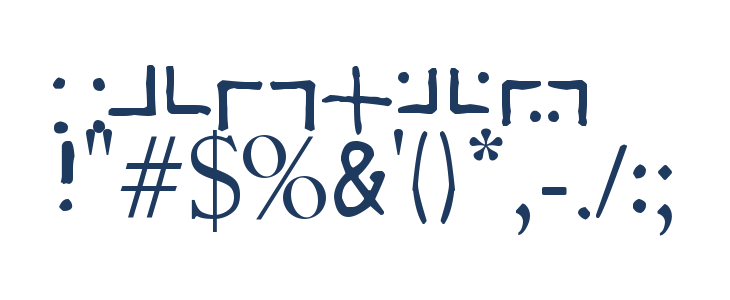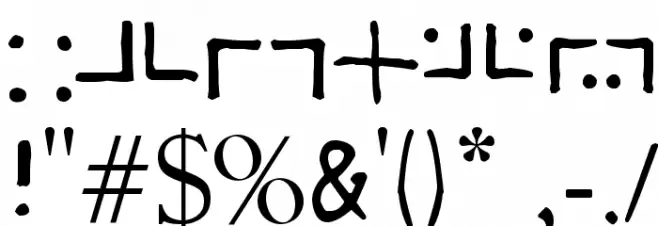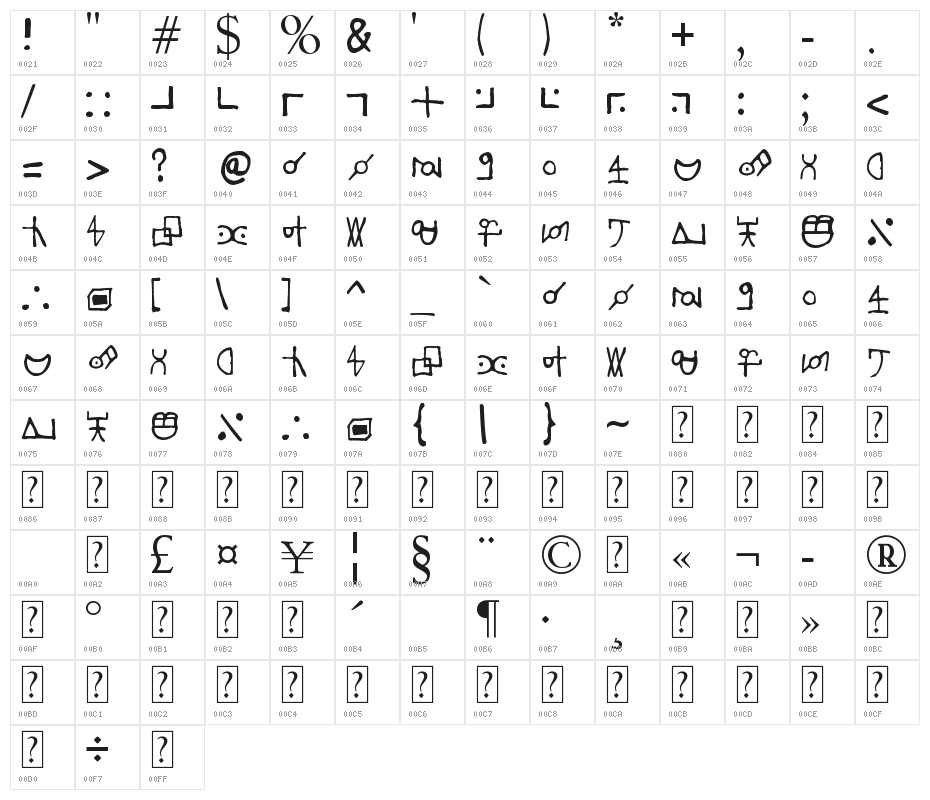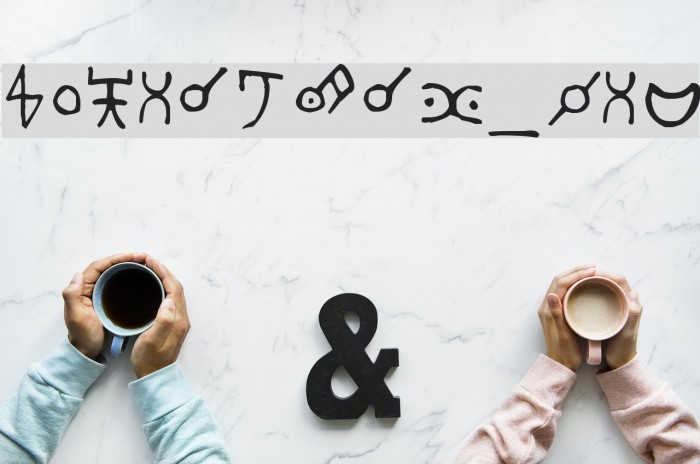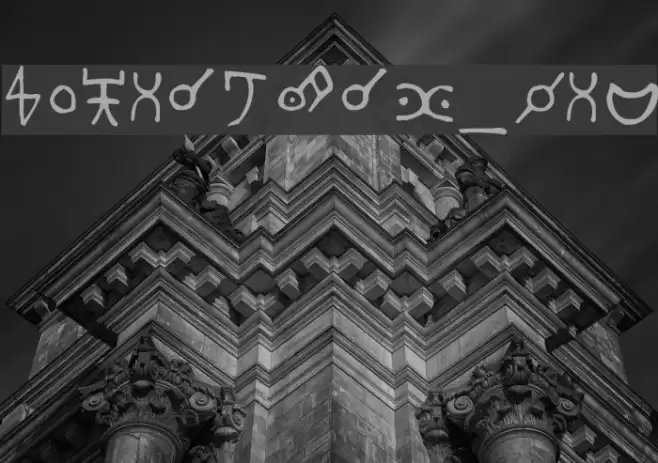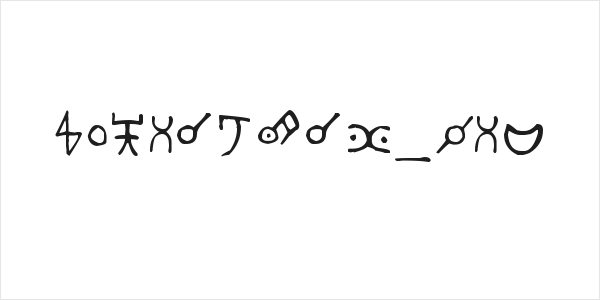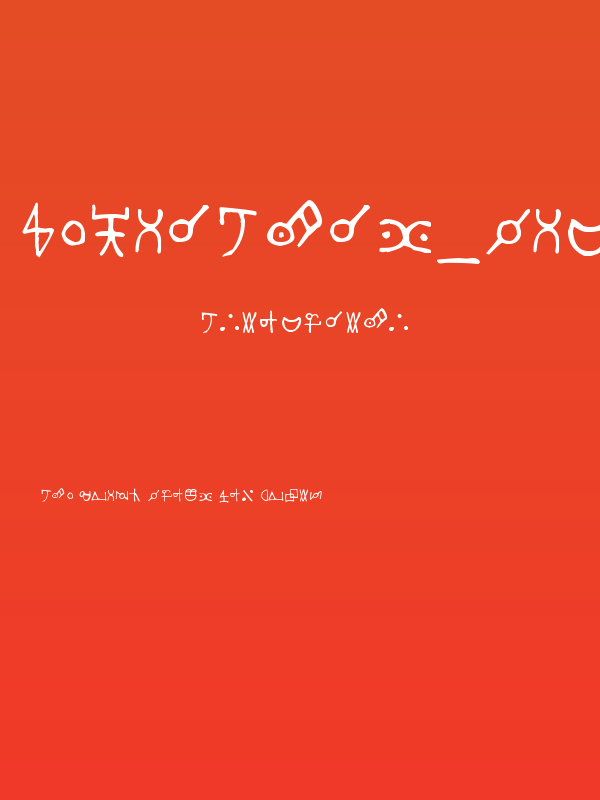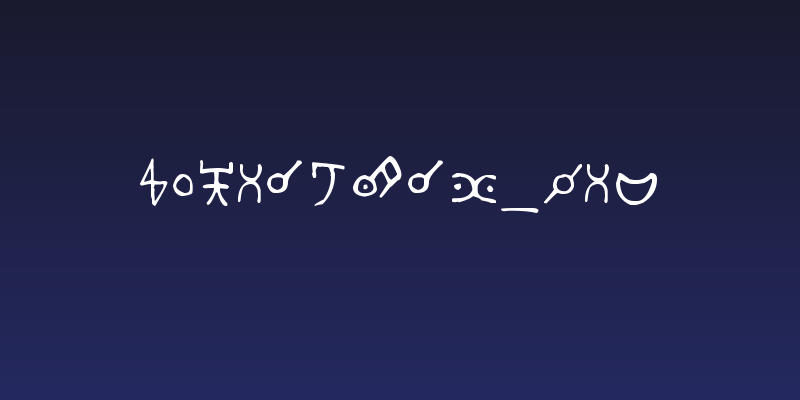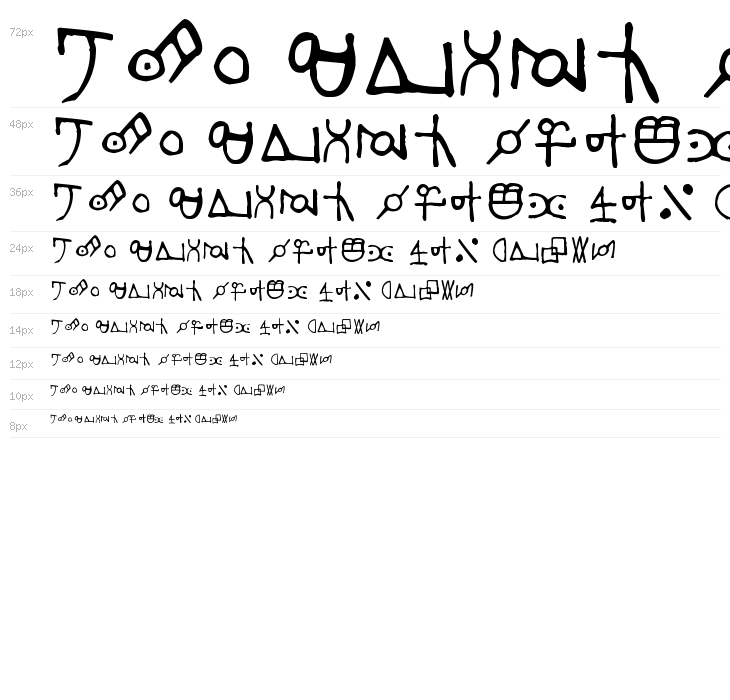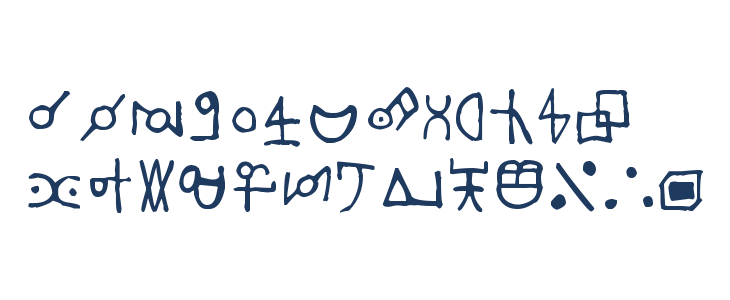
Leviathan_big Font
Leviathan_big Description
This font features a unique and abstract design, resembling ancient scripts or symbolic writing. The characters are highly stylized, with a mix of geometric shapes and organic curves, creating a mysterious and cryptic appearance. The letters and symbols are bold and have a hand-drawn quality, giving them an artistic and unconventional look. The font's distinctiveness makes it suitable for projects that require a touch of the exotic or otherworldly. Its intricate design may not be ideal for body text but can be effectively used in titles, logos, or decorative elements where a strong visual impact is desired.
| Use Case | Logos, Titles, Decorative elements |
| Proposed Projects | Ideal for fantasy book covers, game titles, movie posters, or any project needing an exotic, mysterious touch. |